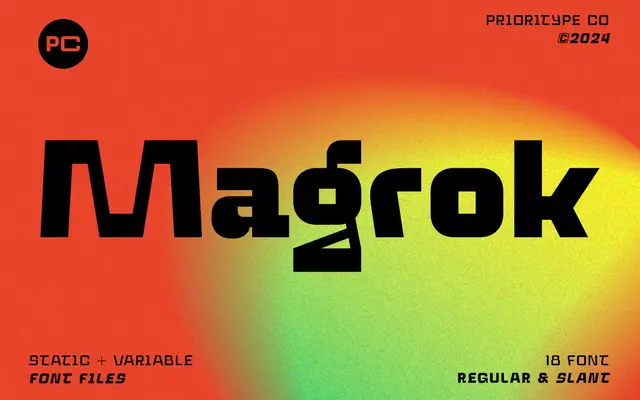
PC Magrok
Prioritype · Prioritype Co · 2024
A variable contemporary display sans in nine weights with matching slanted cuts, aimed at logo, poster and branding work.
PC Magrok spans nine weights from Thin to Black, each with a slanted companion, giving 18 static fonts alongside a variable file. Coverage extends across a broad range of Latin-script languages including Afrikaans, Swahili, Indonesian and Zulu. The freestyle construction suits headline and identity contexts where some personality is wanted without moving into script or decorative territory.
Described by the foundry as a freestyle contemporary display font; the slanted cuts, wide weight range and expressive letterforms place it firmly in the display category rather than functional text sans.